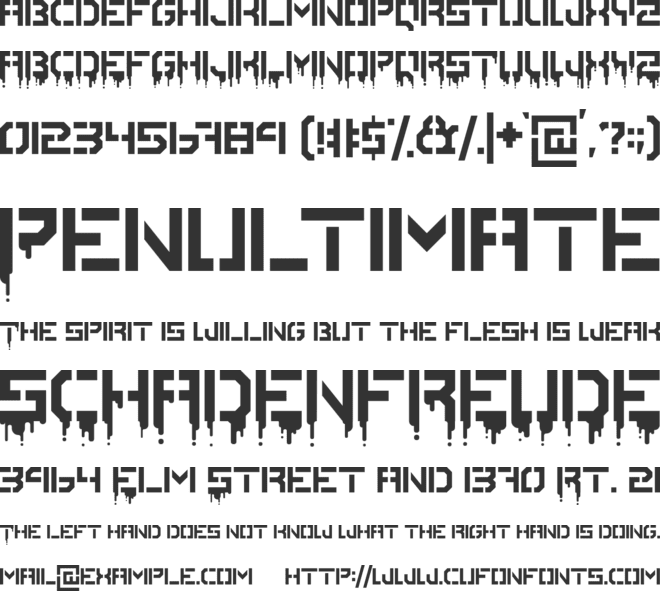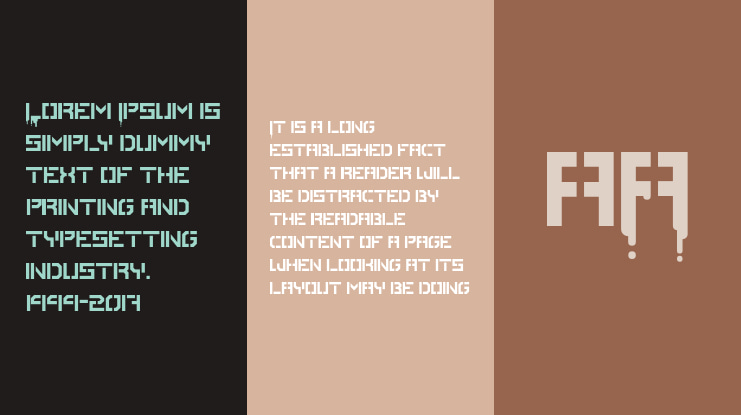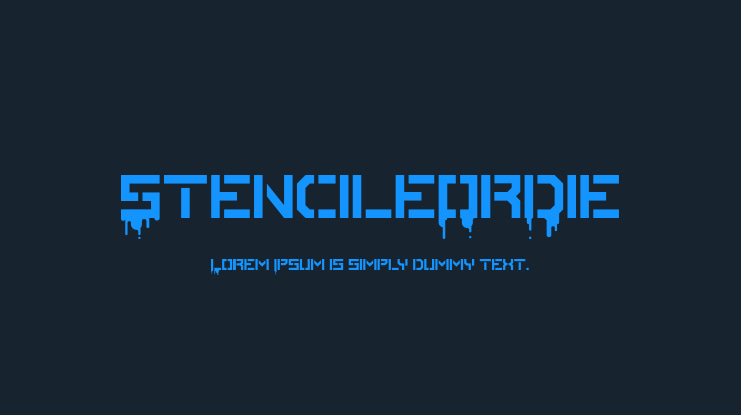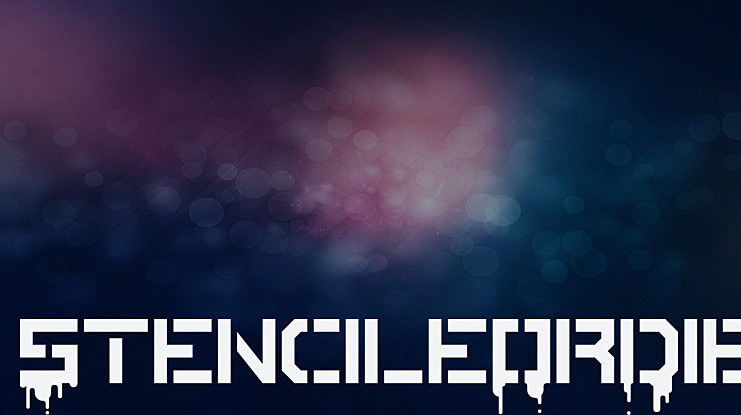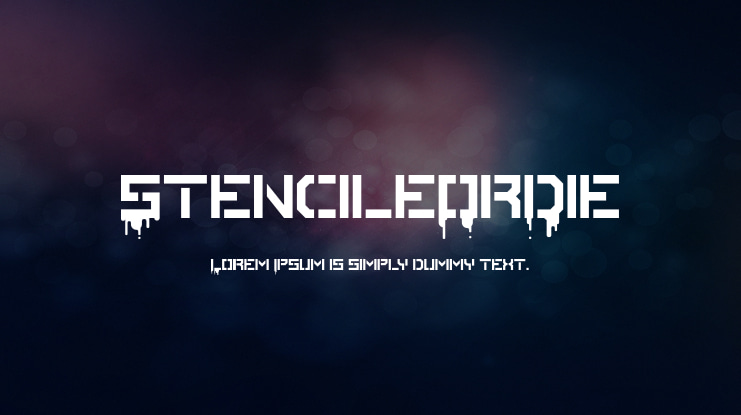
StencileOrDie Font Family
A stencil font inspired by street art. The straight lines give it an easier form when cutting out the letters for "spray on stencils". Comes in regular and italic versions.